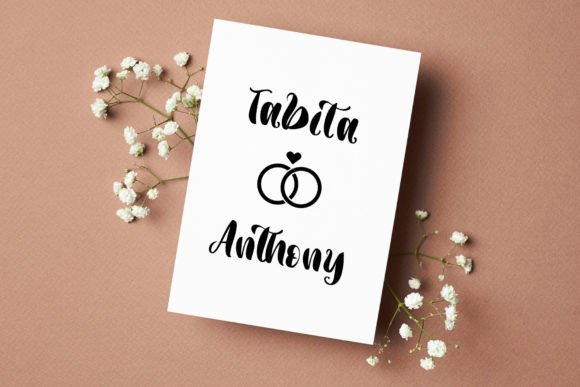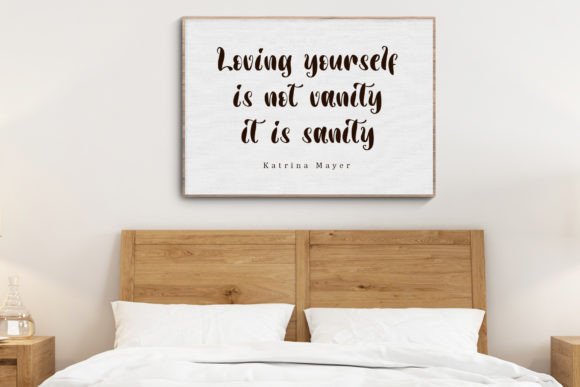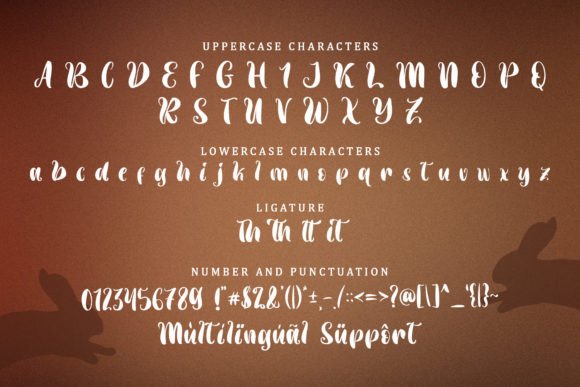
Introduction to Rabbit Warm Font
Have you ever been working on a creative project, pouring your heart and soul into it, only to feel like something is missing? That’s when I stumbled upon the Rabbit Warm Font – a game-changer for designers like us. Its elegant and flowing lines instantly caught my attention, and I knew I had to share it with you.
Whether you’re designing a wedding invitation, a romantic book cover, or a social media post, the Rabbit Warm Font is the perfect design resource to add a touch of love and beauty to your work. Its high-quality design and transparent background make it a free download that’s hard to resist. With its PUA encoding, you can easily access all the delightful glyphs and swashes to take your designs to the next level.
As designers, we’re always on the lookout for unique and creative tools to elevate our work. The Rabbit Warm Font is a valuable addition to any design toolkit, and I’m excited to share its magic with you.
Key Features of Rabbit Warm Font
- High-quality, unique typography design with a warm and inviting aesthetic, perfect for creative projects.
- Features a transparent background, making it easy to use in any design setting.
- Designed to be versatile, suitable for a range of creative projects, from branding and marketing materials to digital products and editorial content.
- Size: 2,000 characters, providing ample space for creative expression.
- Unique characteristics include a custom-designed alphabet, numerals, and punctuation marks, making it a valuable design resource.
Honest Review: Rabbit Warm Font
I recently came across the Rabbit Warm Font and was excited to give it a try. As a designer, I’m always on the lookout for high-quality fonts to add to my design resource library. The Rabbit Warm Font is a free download that boasts a unique and inviting aesthetic.
- ✨ Unique Character:** The font has a distinct, handwritten feel that adds a touch of personality to any creative project.
- ✨ High-Quality:** The font is clear and crisp, making it perfect for a variety of design applications.
- ✨ Transparent Background:** This feature is a game-changer for designers who want to create seamless, layered designs.
However, there are a few limitations to consider: ⚠️ No Bold or Italic Variations:** While the font is great for body text, it may not be the best choice for headings or titles.
Overall, I’m impressed with the Rabbit Warm Font. It’s a great addition to any designer’s library and is perfect for creative projects that require a unique touch. With its high-quality design and transparent background feature, it’s definitely worth checking out.
Rabbit Warm Font is perfect for creating:
- Invitations and greeting cards.
- Branding materials, such as logos and business cards.
- Infographics and data visualizations.
Alternatives to Rabbit Warm Font
Lato is a high-quality, free download font that is perfect for creative projects requiring a modern and clean design. It comes in a range of weights and styles, making it suitable for various design needs. Lato is ideal for designs that require a transparent background and a clear, readable font. When to use: Web design, mobile apps, and corporate branding. Compared to Rabbit Warm Font, Lato has a more modern and sleek look, whereas Rabbit Warm Font has a more vintage and distressed feel.
Montserrat is a free download font that is ideal for creative projects requiring a urban and edgy design. It is a high-quality font that is suitable for designs with a transparent background and a bold, modern look. When to use: Urban designs, graffiti art, and streetwear branding. Compared to Rabbit Warm Font, Montserrat has a more rugged and industrial look, whereas Rabbit Warm Font has a more playful and whimsical feel.
Yes, Rabbit Warm Font features a transparent background, making it ideal for use on various backgrounds and creative projects. This allows you to focus on your design without worrying about the font’s background.